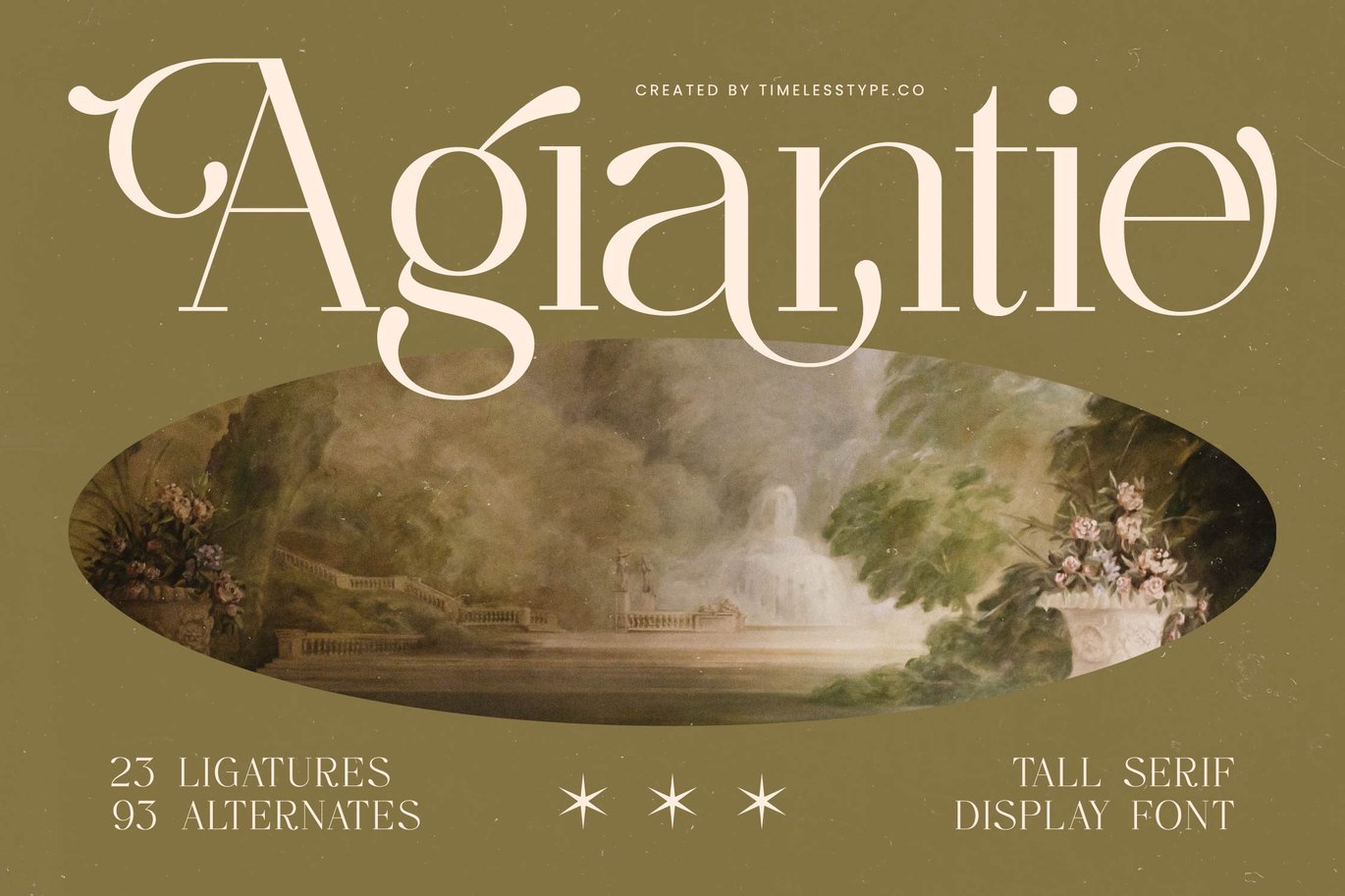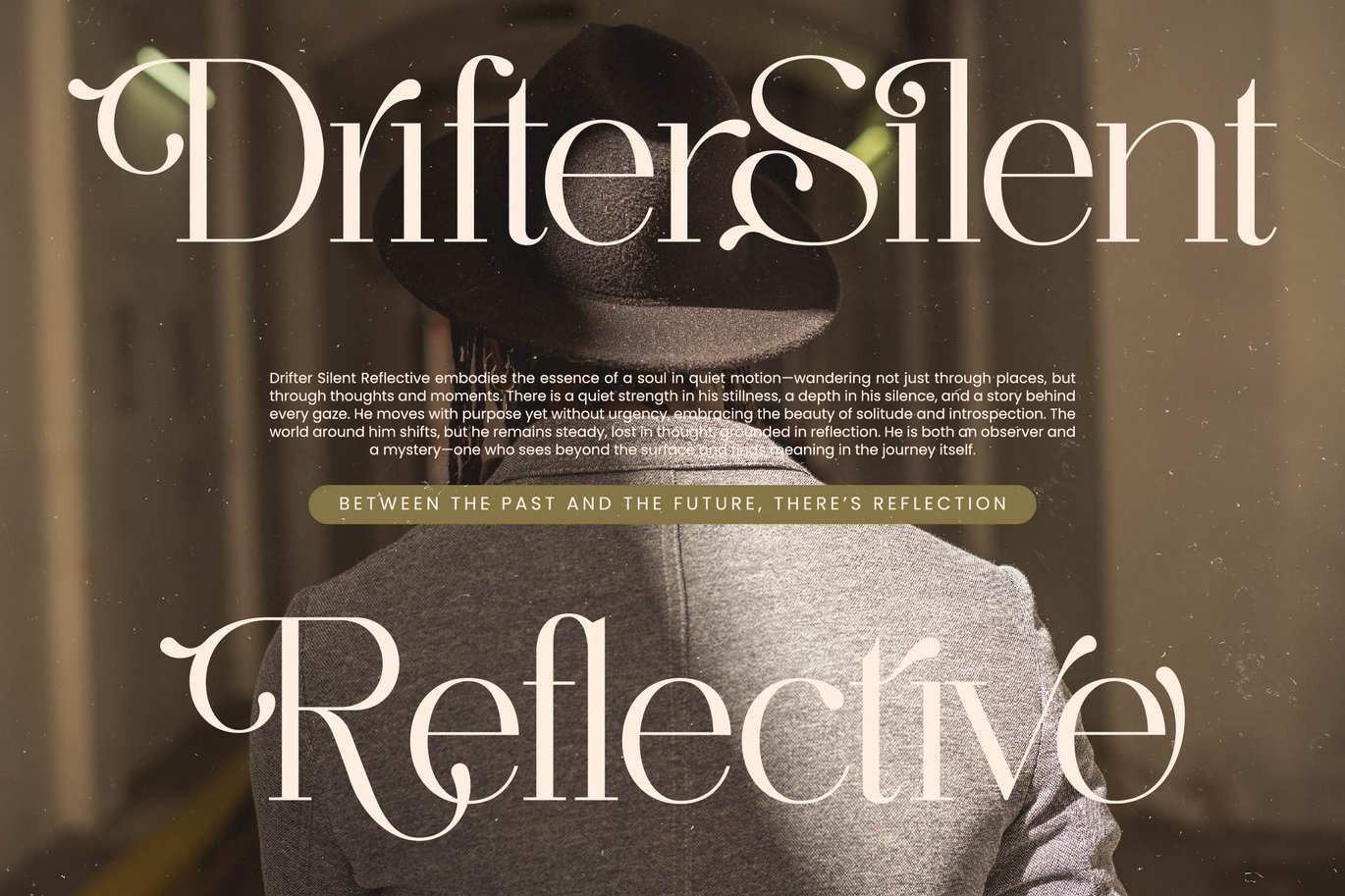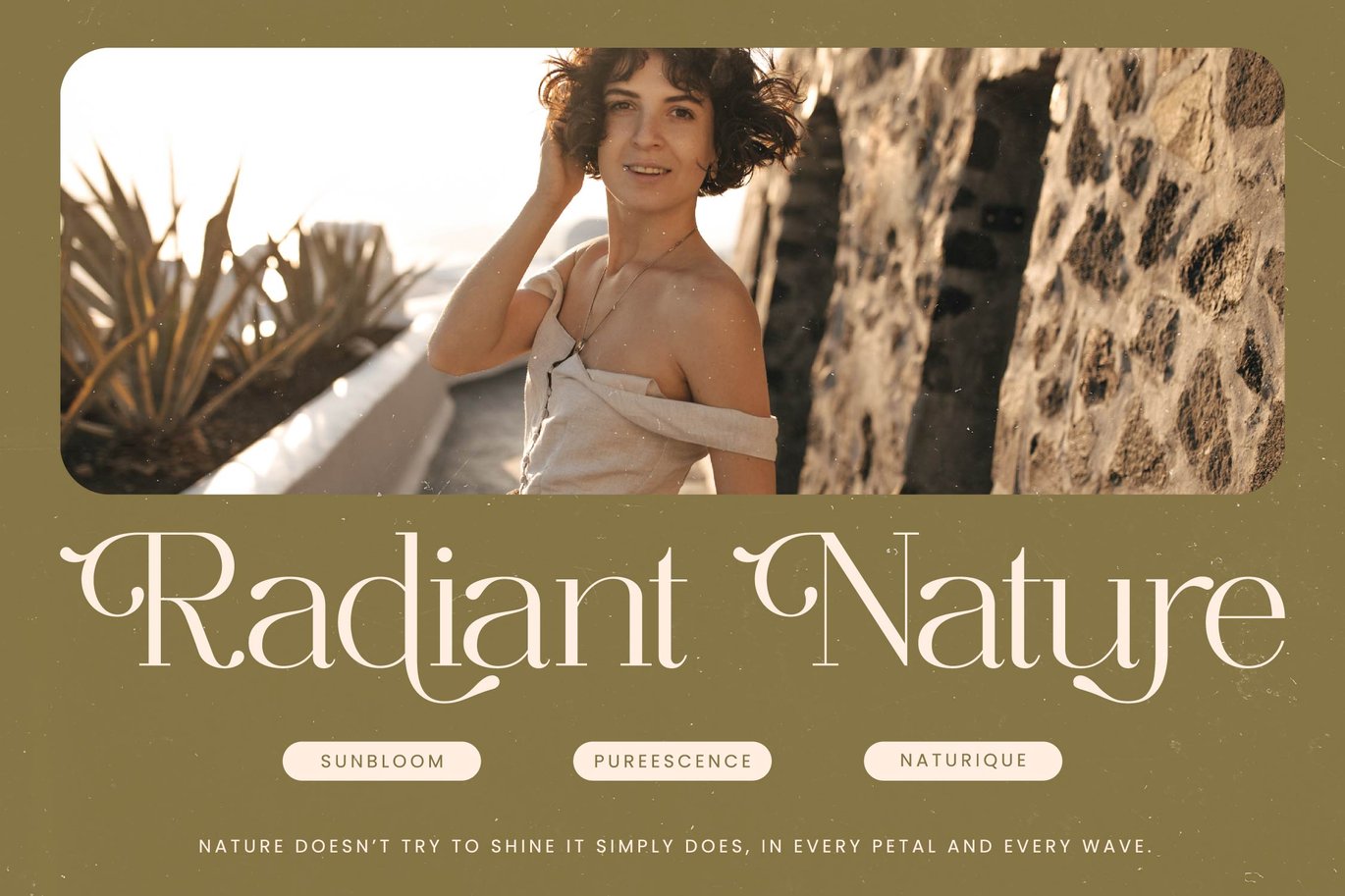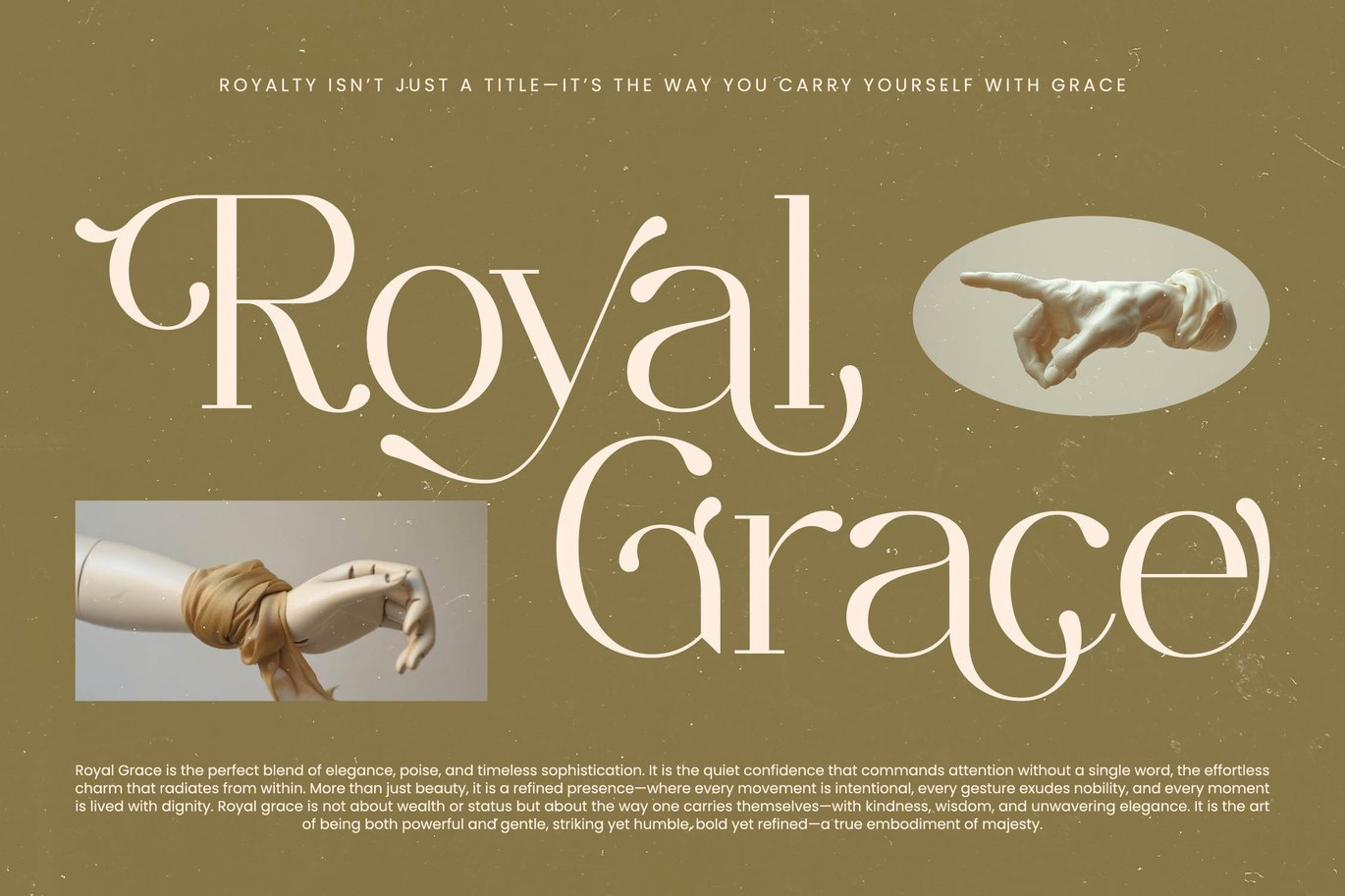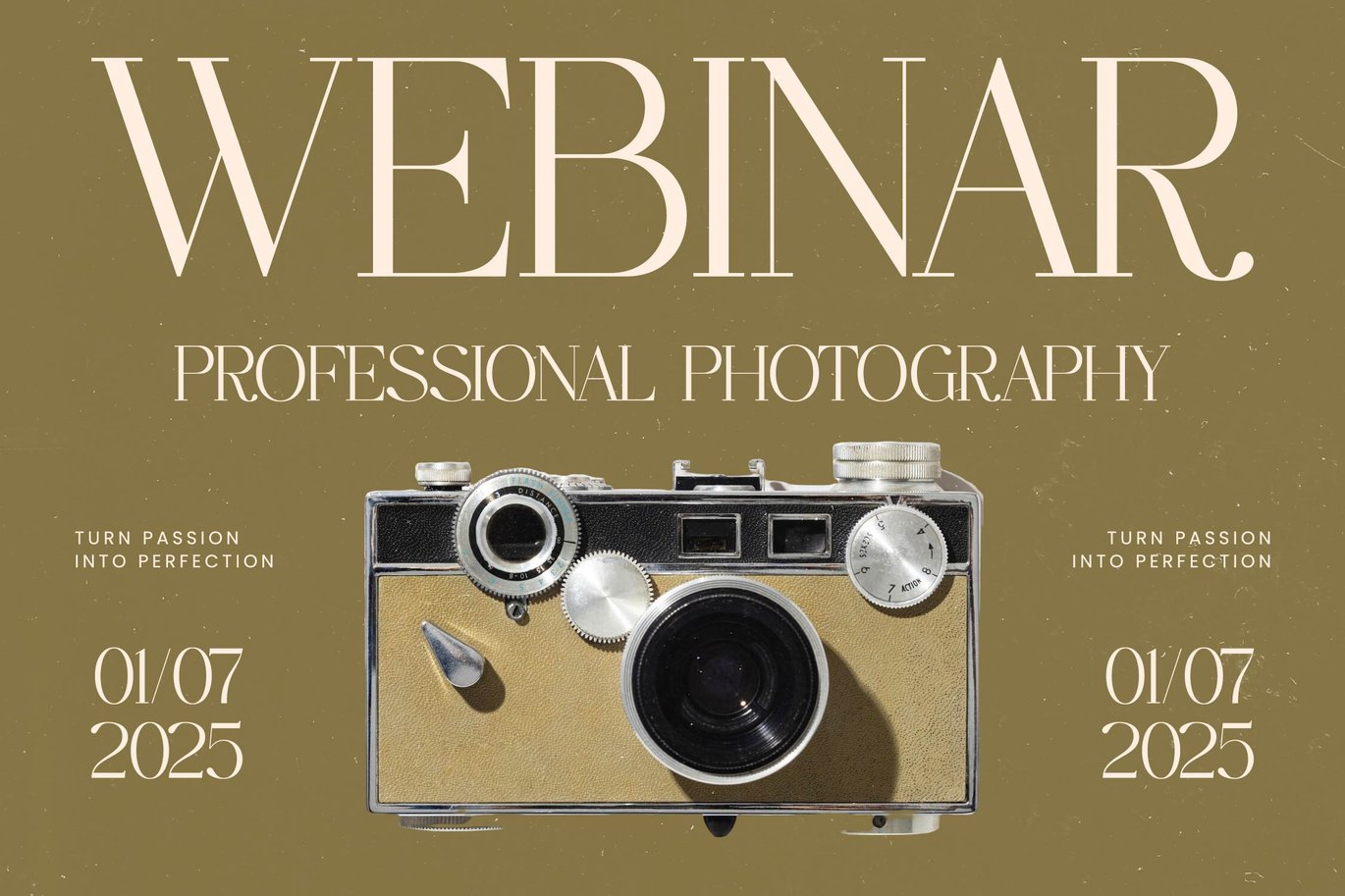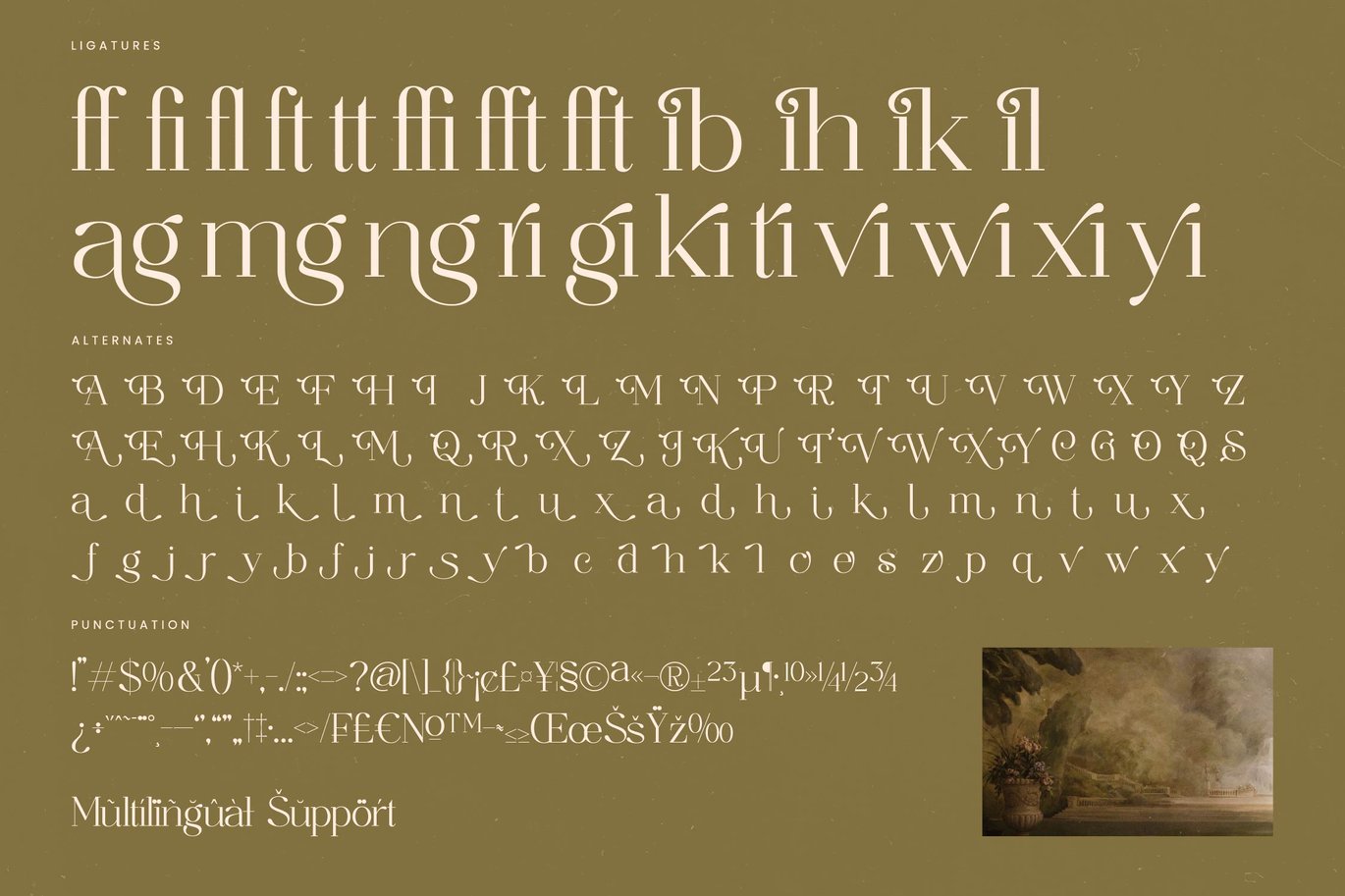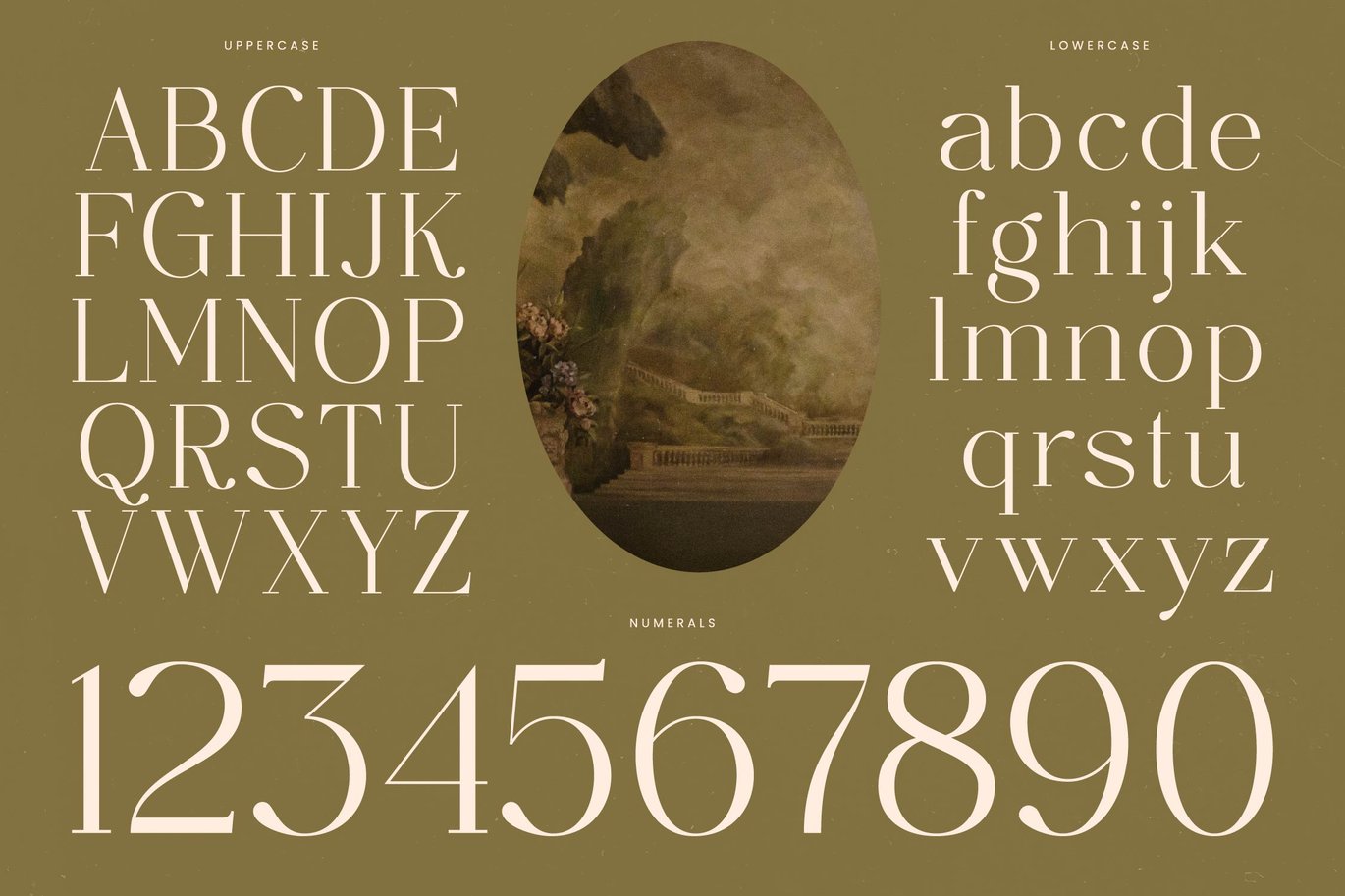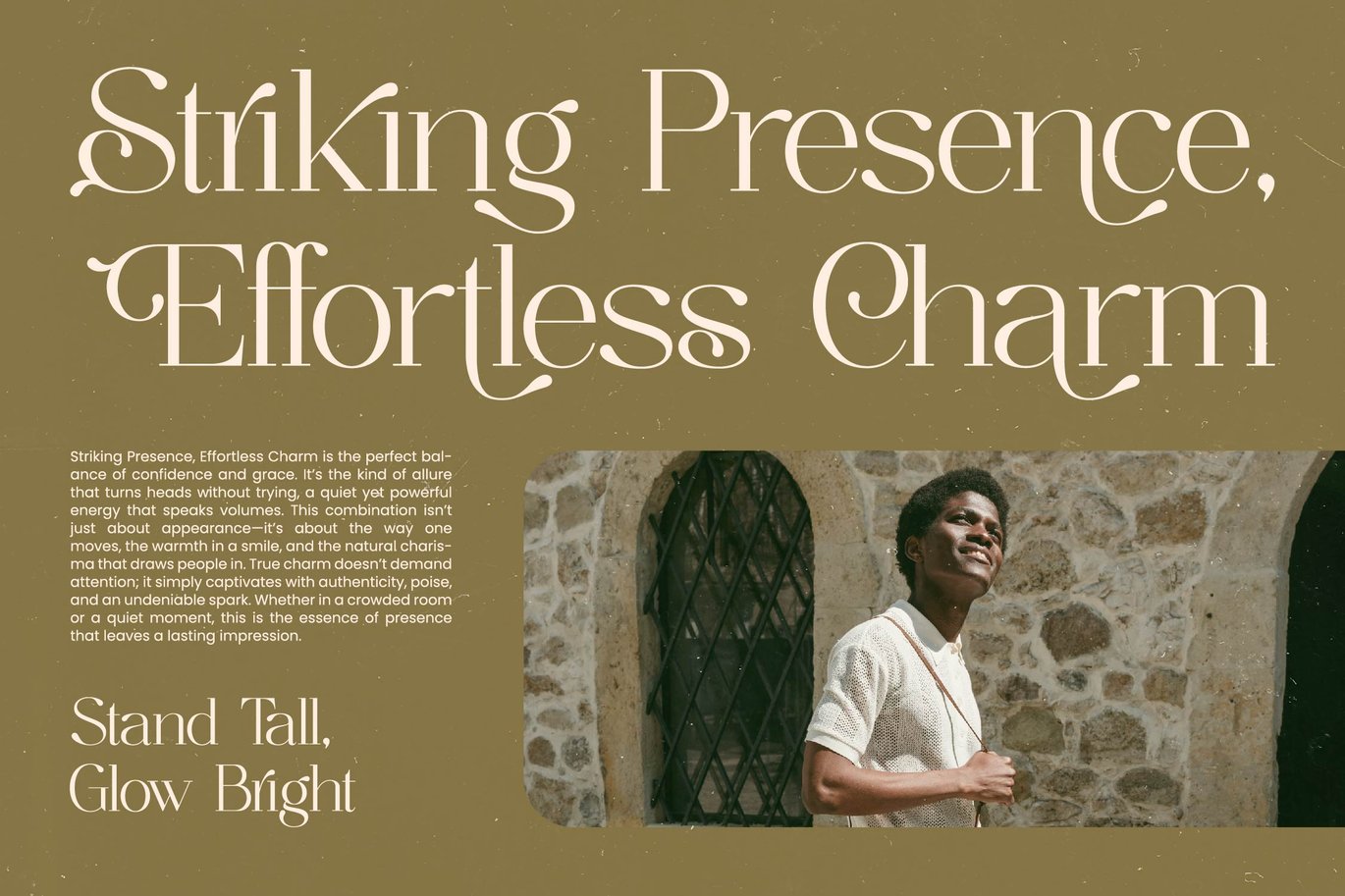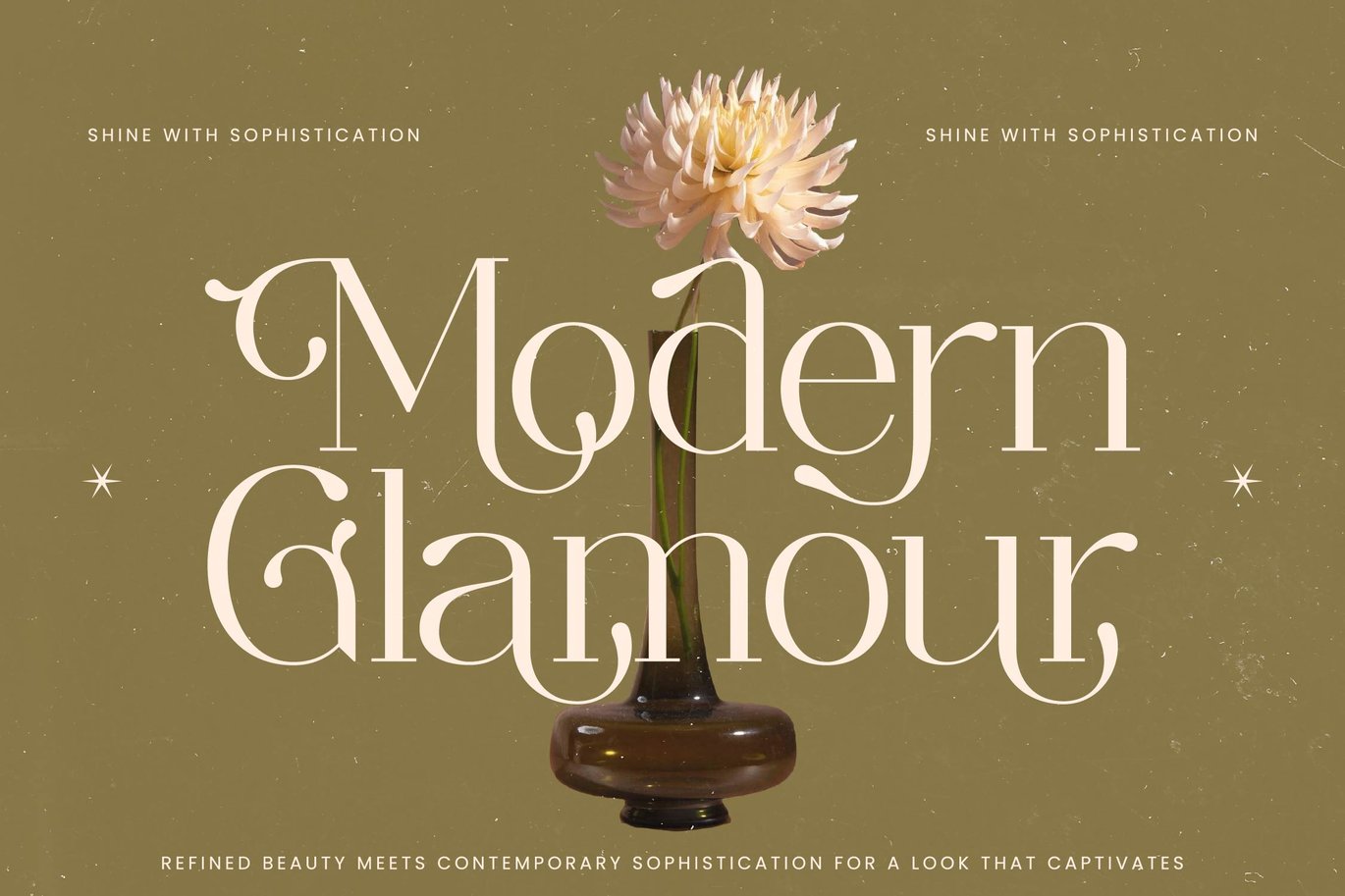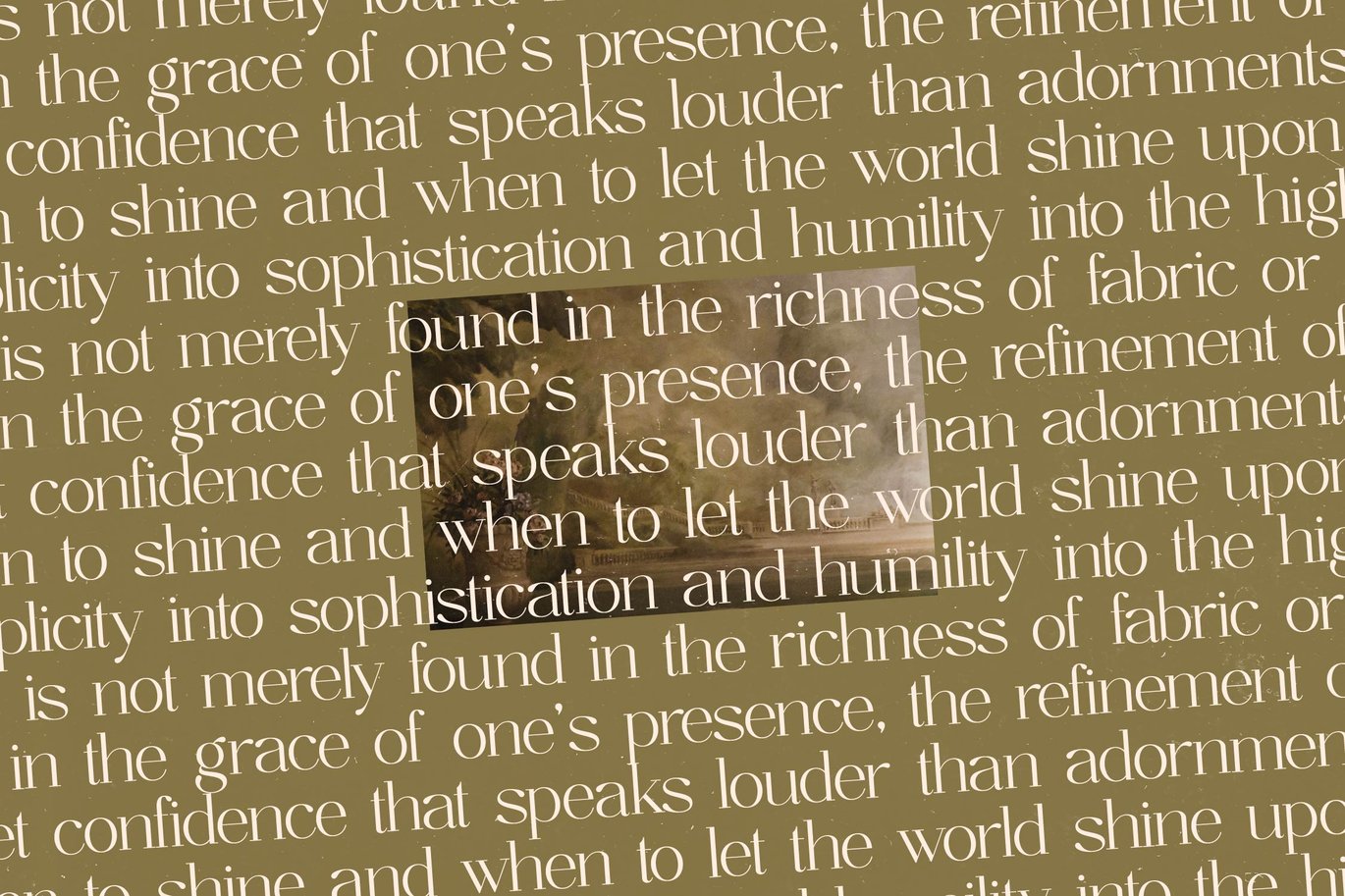
Agiantie - Tall Serif Display Font
Agiantie is a refined tall serif display font crafted to bring sophistication, elegance, and high-end visual identity into your design projects. With elongated proportions, graceful curves, and artistic serif detailing, this typeface blends classical beauty with luxurious contemporary aesthetics. Perfect for branding, editorial design, magazine headlines, packaging, wedding invitations, perfume labels, and any layout that needs an elevated, timeless look.
Agiantie includes 23 elegant ligatures and an impressive 93 stylistic alternates, giving you full creative control to build custom wordmarks and premium typographic compositions. Each character is drawn to exude charm, finesse, and balanced contrast—ideal for designers aiming to achieve a polished luxury feel. FEATURE :
• Ligature
• Uppercase and lowercase
• Numbering and Punctuation